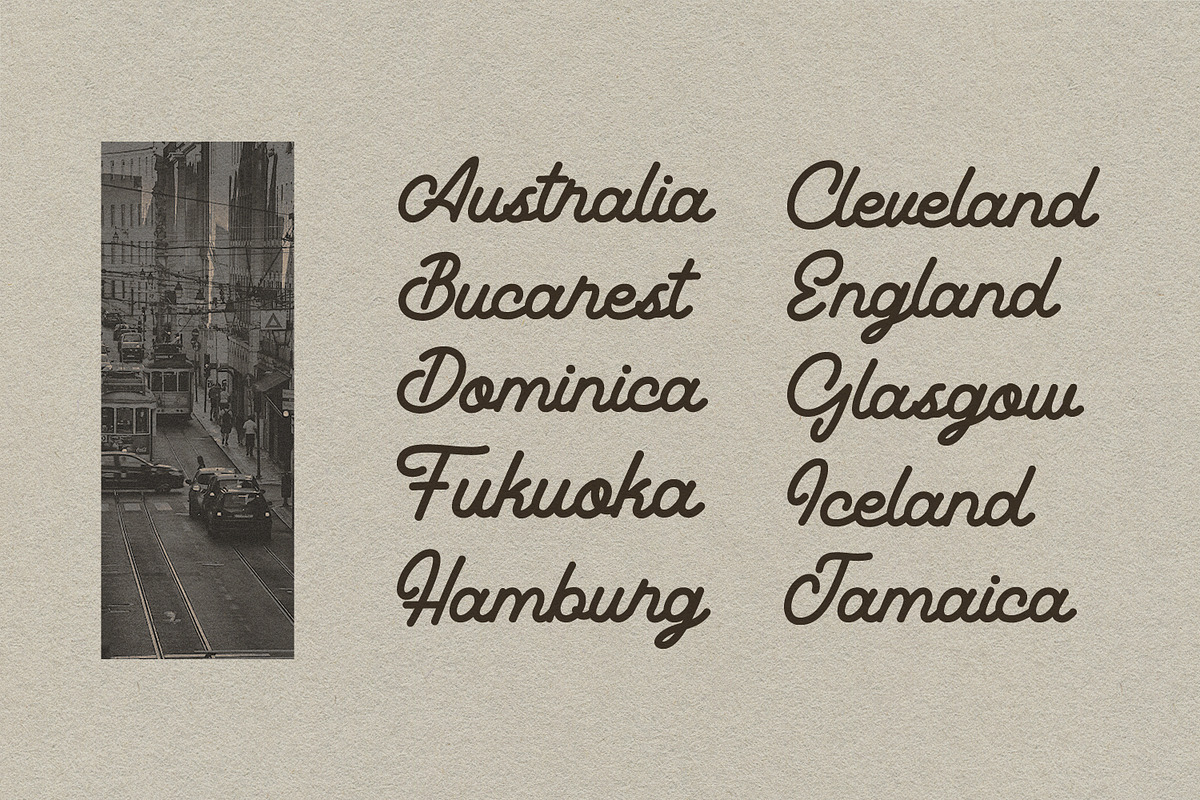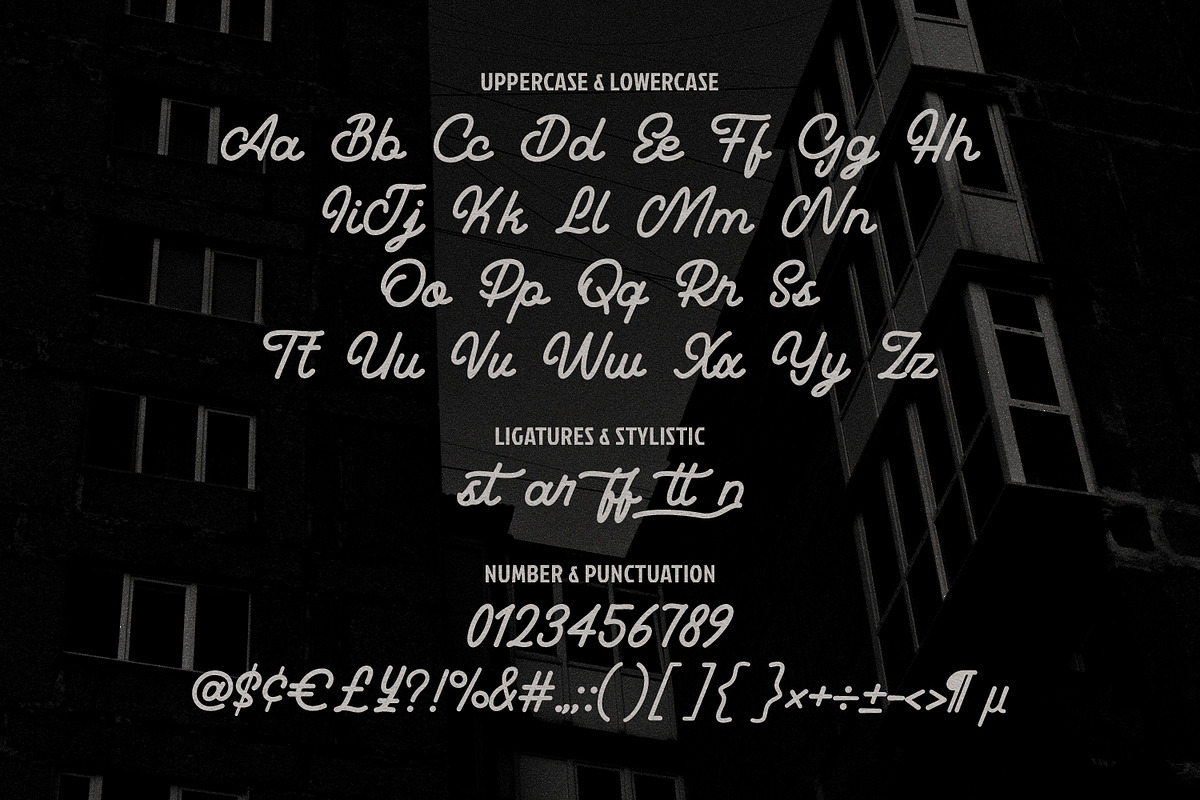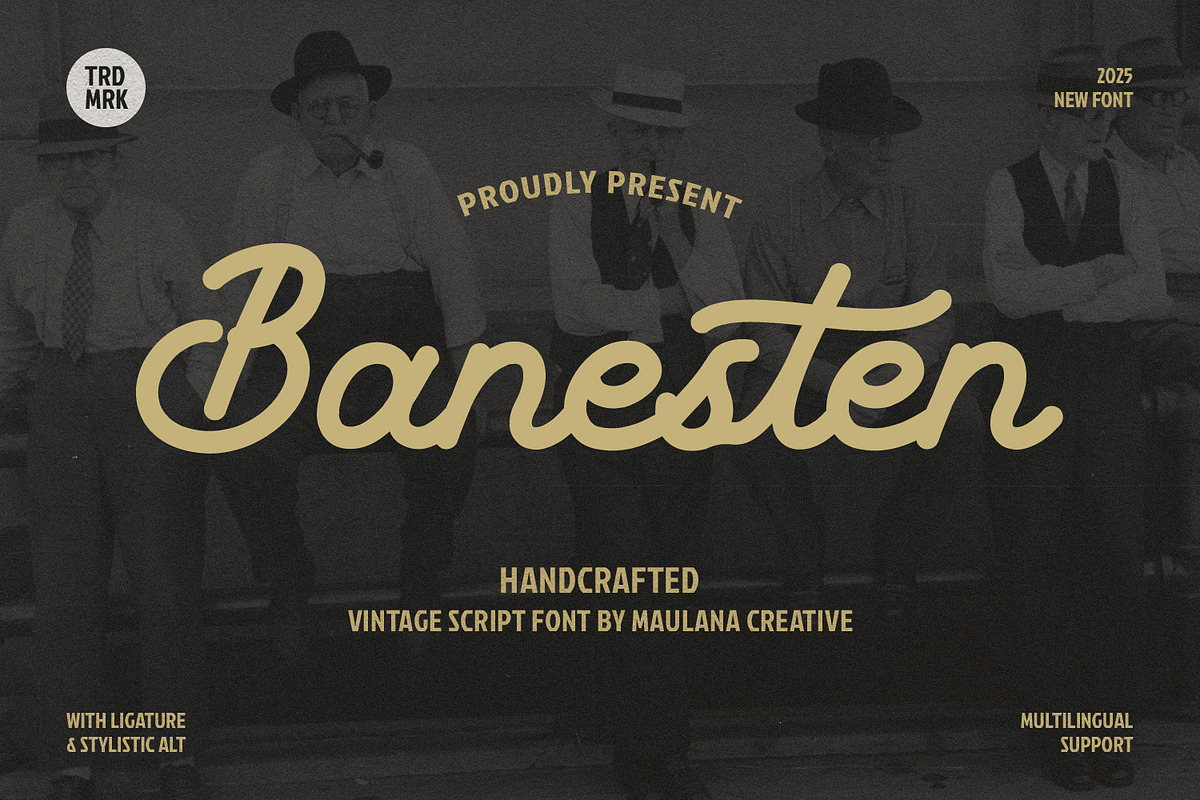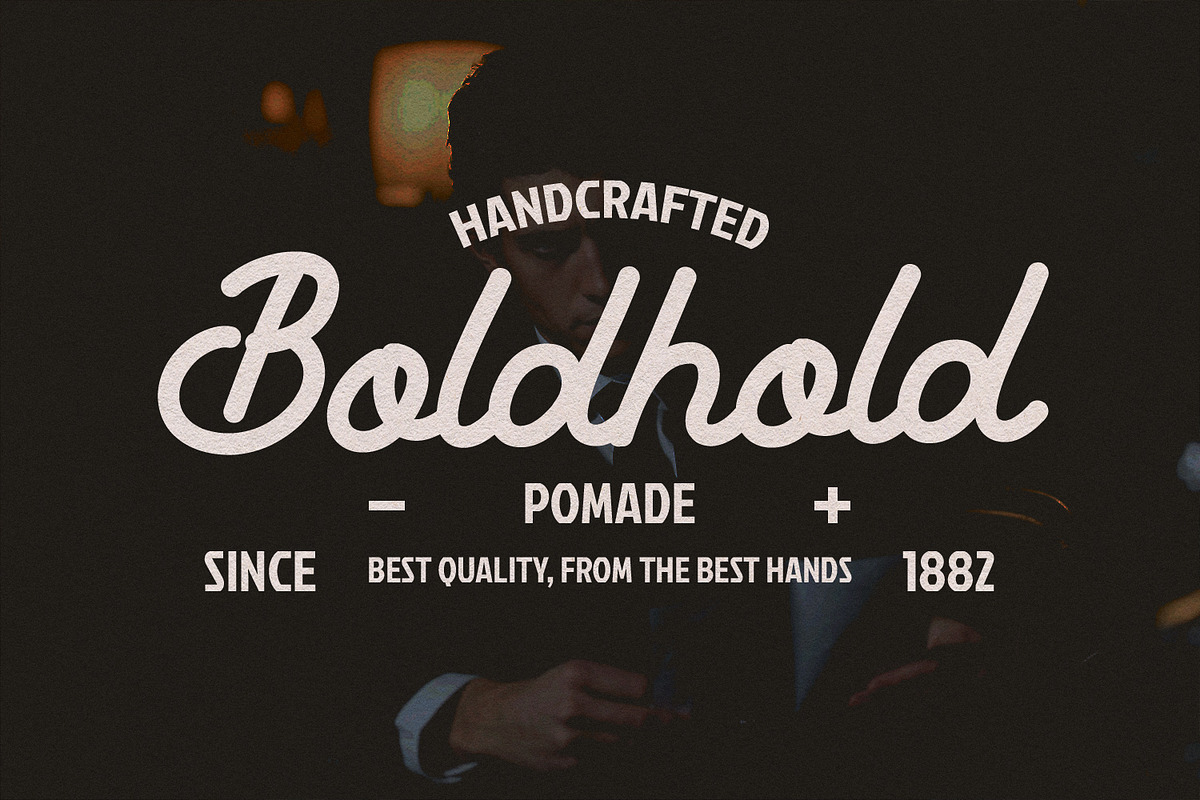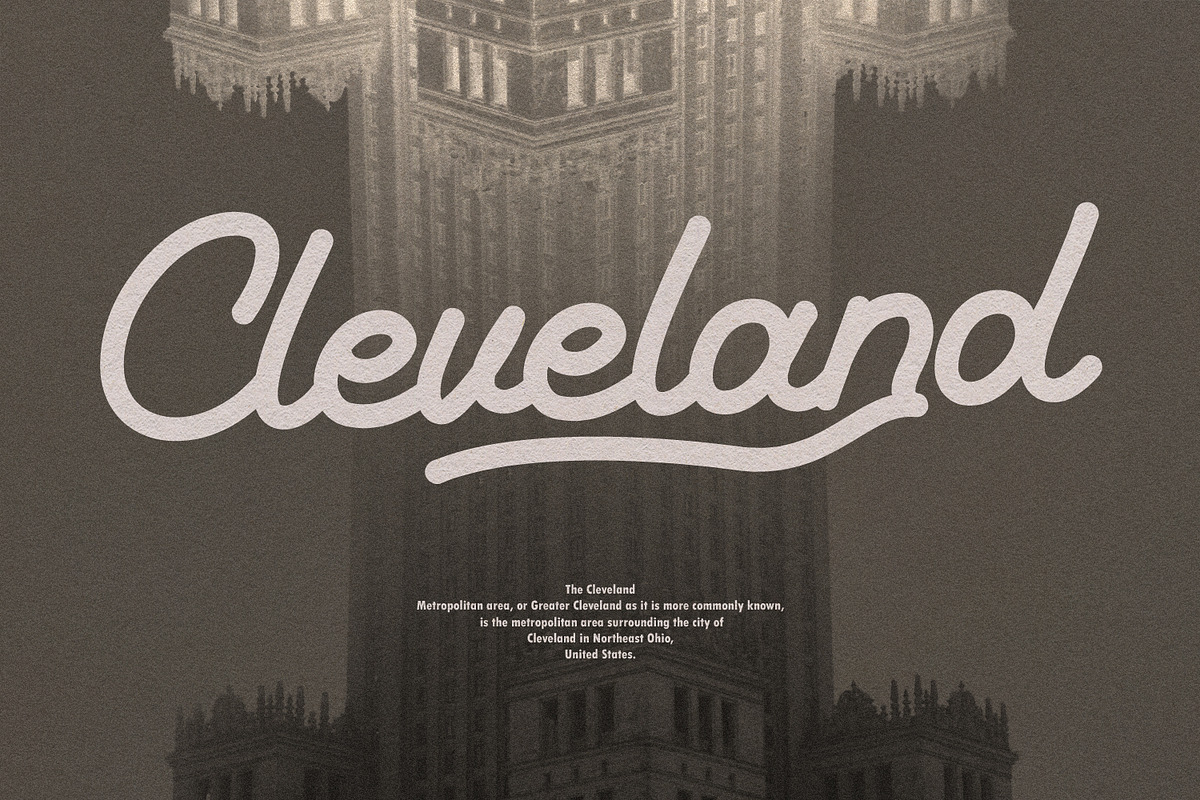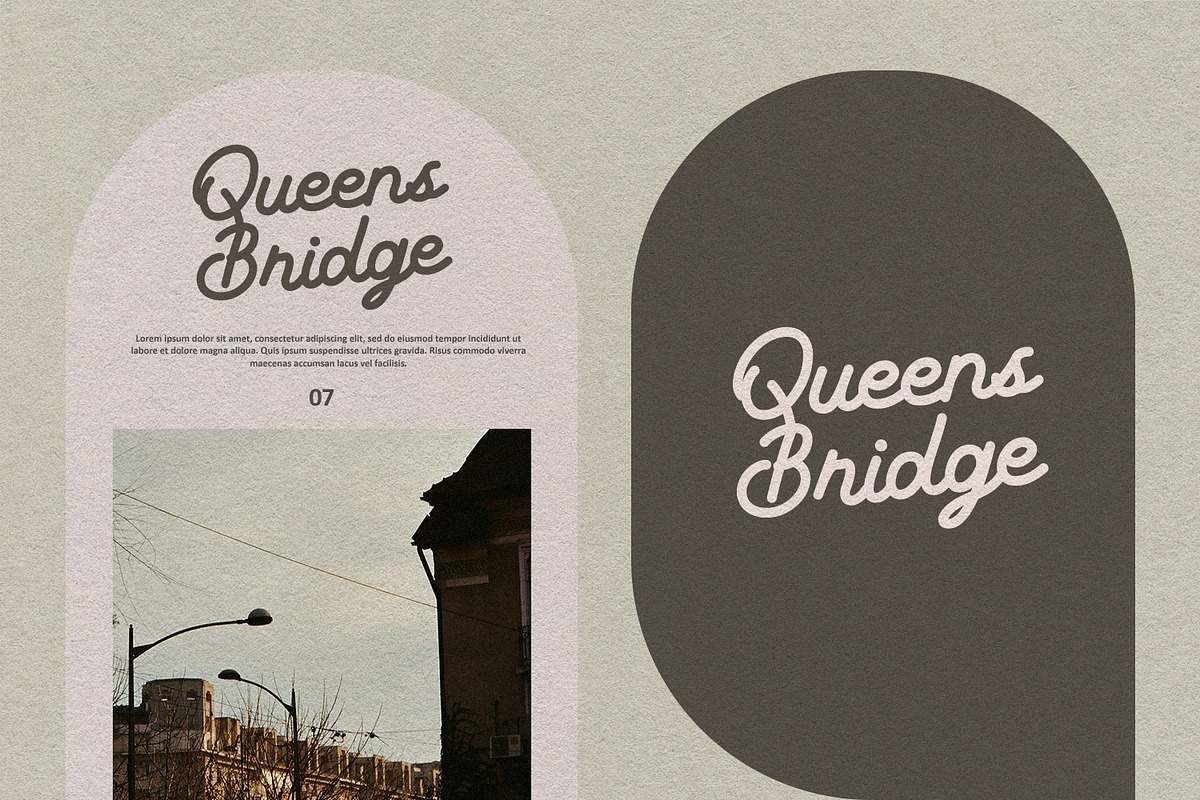
Banesten Handcrafted Vintage Script
Give your designs an authentic handcrafted feel. “Banesten Handcrafted Vintage Script Font” is perfectly suited to stationery, logos and much more. Include alternative character and ligature characters.
- Ligature and Alternate